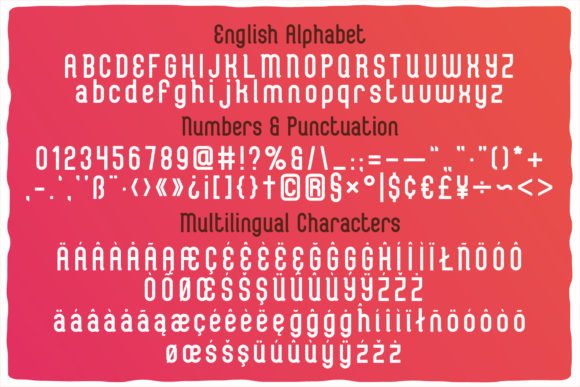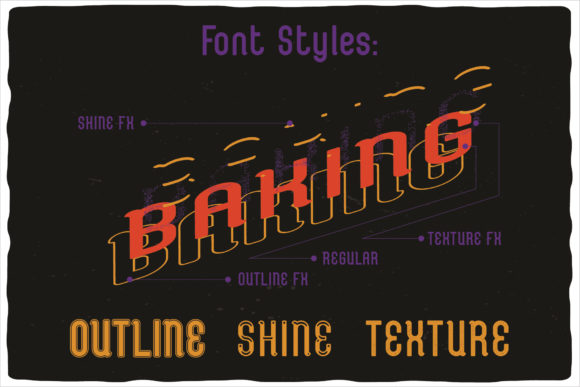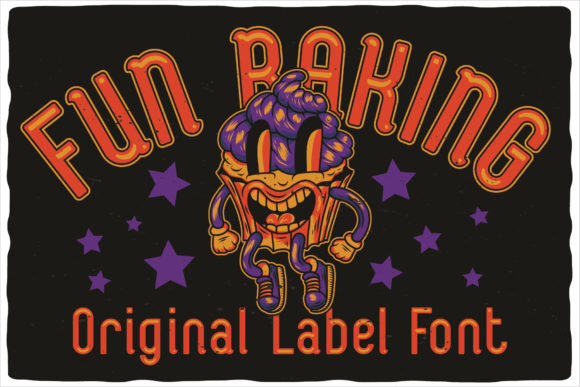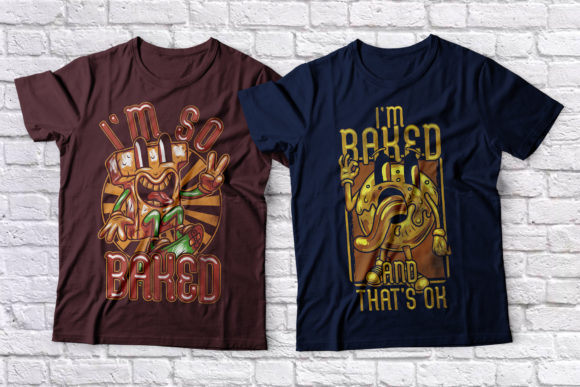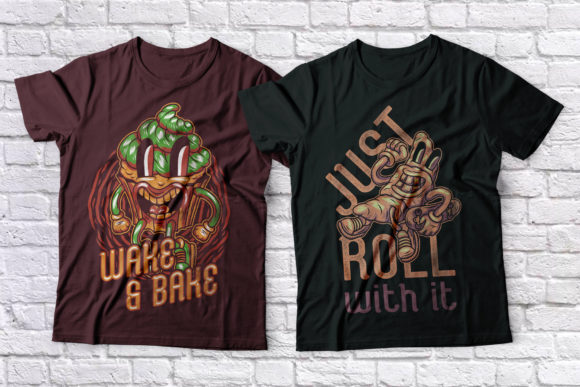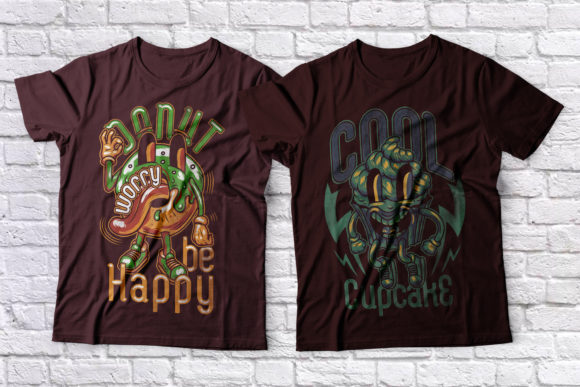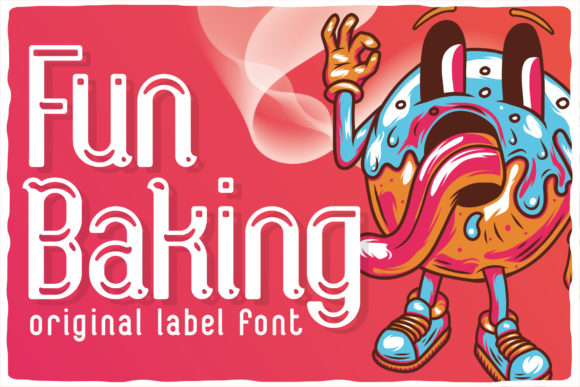
Introducing Fun Baking Font: The Sweetest Addition to Your Design Collection
Are you a designer, crafter, or DIY enthusiast looking for a font that adds a touch of whimsy and playfulness to your creations? Look no further than Fun Baking Font, a cool and trendy display font that’s sure to make your projects stand out. In this article, we’ll dive into the world of Fun Baking Font, exploring its features, benefits, and uses, as well as provide tips and inspiration for incorporating it into your designs.
What is Fun Baking Font?
Fun Baking Font is a expertly designed display font that’s perfect for adding a dash of fun and personality to your creations. With its unique and eye-catching style, this font is sure to grab attention and leave a lasting impression. Whether you’re working on a baking-themed project, a craft tutorial, or simply want to add some visual interest to your social media posts, Fun Baking Font is the perfect choice.
Key Features of Fun Baking Font
- Cool and Trendy Design: Fun Baking Font boasts a modern and stylish design that’s perfect for making a statement.
- Versatile: This font is suitable for a wide range of projects, from baking and cooking to crafting and DIY.
- Easy to Read: Despite its playful design, Fun Baking Font is clear and easy to read, making it perfect for headlines, titles, and short paragraphs.
- High-Quality: Fun Baking Font is a high-quality font that’s designed to produce crisp and clean results, even at large sizes.
Uses for Fun Baking Font
So, how can you use Fun Baking Font in your designs? The possibilities are endless! Here are a few ideas to get you started:
- Baking and Cooking Projects: Use Fun Baking Font to add a touch of personality to your recipe cards, baking tutorials, and cooking blog posts.
- Crafting and DIY: Add a playful touch to your craft tutorials, DIY projects, and handmade product labels with Fun Baking Font.
- Social Media Graphics: Use Fun Baking Font to create eye-catching social media graphics, including Facebook posts, Instagram captions, and Pinterest pins.
- Signage and Displays: Fun Baking Font is perfect for creating eye-catching signage and displays for bakeries, cafes, and craft fairs.
Tips for Using Fun Baking Font
To get the most out of Fun Baking Font, here are a few tips to keep in mind:
- Use it Sparingly: While Fun Baking Font is a beautiful font, it’s best used sparingly to add emphasis and visual interest to your designs.
- Pair it with Other Fonts: Experiment with pairing Fun Baking Font with other fonts to create a unique and visually appealing combination.
- Experiment with Colors: Fun Baking Font looks great in a variety of colors, so don’t be afraid to experiment and find the perfect hue for your design.
In conclusion, Fun Baking Font is a versatile and stylish display font that’s perfect for adding a touch of whimsy and playfulness to your designs. With its cool and trendy design, ease of use, and high-quality results, this font is sure to become a favorite in your design collection. So why wait? Download Fun Baking Font today and start creating stunning designs that are sure to impress!